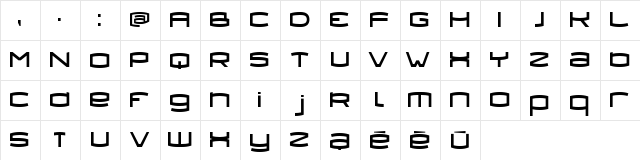
Dollis Dollis Font Preview
Dollis Dollis
Dollis Dollis Font Details
| Style | Dollis |
| Foundry | BenoԴ Sjڨolm |
| Designer | BenoԴ Sjڨolm |
Design Context for Dollis Typeface
Dollis is a composed and adaptable typeface that performs quietly and consistently across a wide range of design contexts.